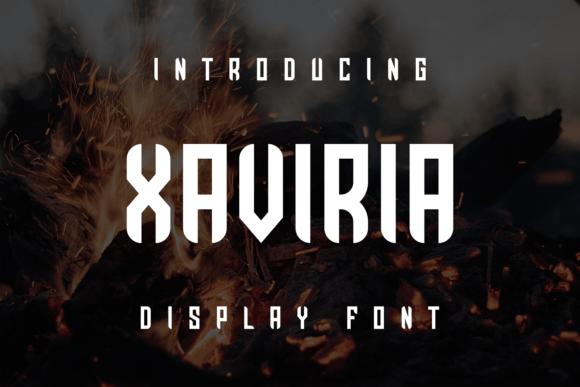
Introducing Xaviria Font: Unleash Your Creative Edge with a Touch of Elegance and Playfulness
In a world saturated with uniformity, Xaviria Font emerges as a breath of fresh air, a font family that embodies both sophistication and whimsy. Its meticulously crafted characters exude a sense of timeless elegance, while its playful undertones inject an infectious energy into your designs. Designed with meticulous attention to detail by the renowned lelevien, Xaviria Font is your gateway to creating designs that leave a lasting impression.
Xaviria Font: A Symphony of Style and Versatility
With its captivating curves and dynamic strokes, Xaviria Font seamlessly adapts to a multitude of design projects, transforming your creative visions into tangible masterpieces. Whether you seek to craft eye-catching t-shirt designs that turn heads, create vibrant stickers that add a pop of color to your belongings, or adorn your walls with captivating decorations that reflect your unique personality, Xaviria Font is your perfect companion.
Step into the World of Xaviria: Where Creativity Knows No Bounds
Xaviria Font opens up a world of endless possibilities for digital designs that ignite imaginations. Craft stunning cards that convey your heartfelt messages with an added touch of elegance, or let your creativity run wild in the realm of digital art, where Xaviria Font's versatility shines brightest. Unleash your inner artist and explore the limitless horizons of your creativity, knowing that Xaviria Font will faithfully translate your vision into a visual symphony.
Xaviria Font: The Key to Unlocking Your Unique Style
In the ever-evolving landscape of design, Xaviria Font stands as a beacon of individuality, empowering you to express your unique style with confidence. Whether you're a seasoned designer seeking to expand your horizons or a budding artist eager to make your mark, Xaviria Font provides the perfect canvas for your creative expression. Embrace the power of Xaviria Font and watch as your designs transform into captivating works of art, reflecting the essence of your imagination.